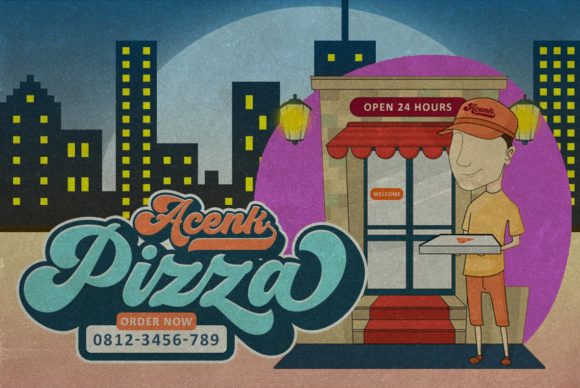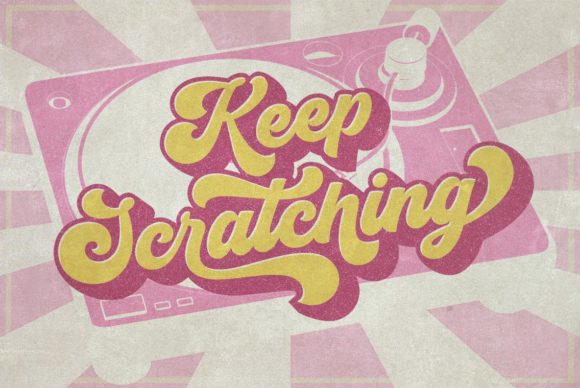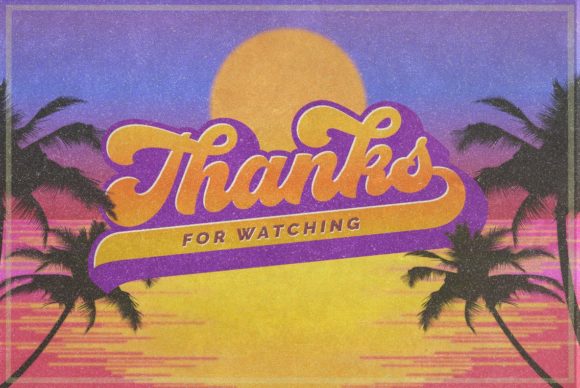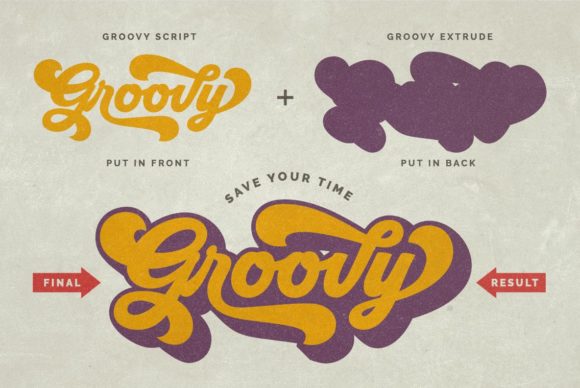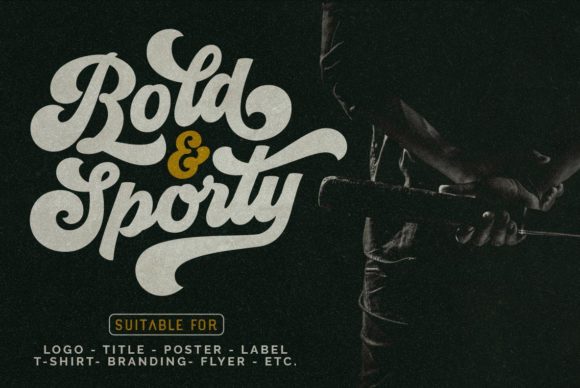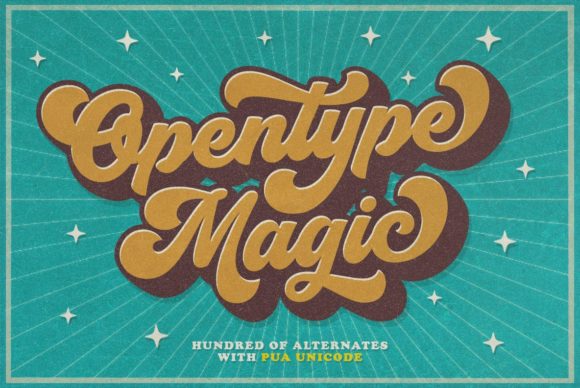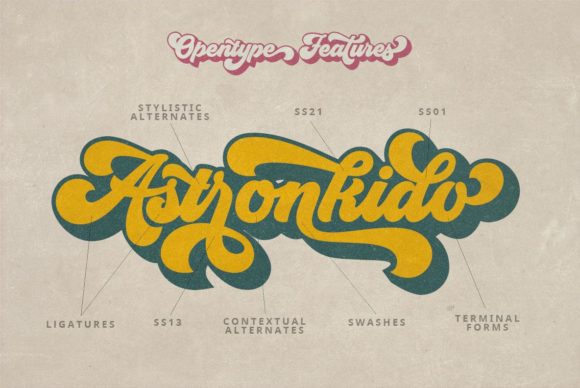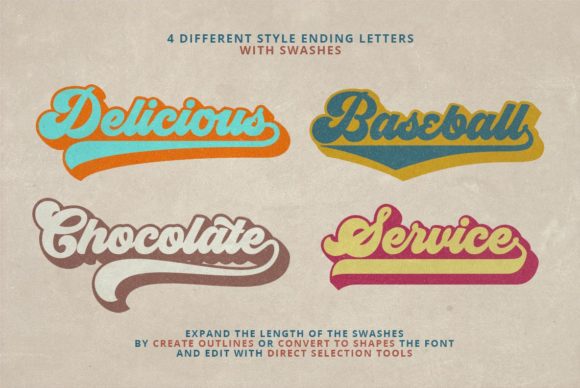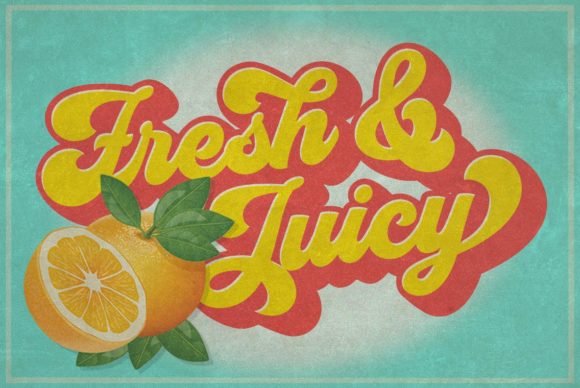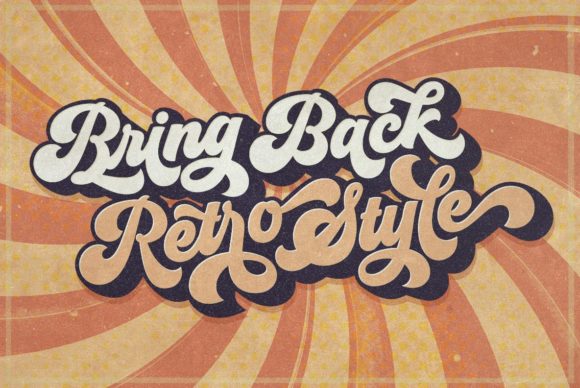
Groovy Font
Groovy is inspired by the iconic advertisements of the late 60’s and 70’s. Get funky with this gorgeous and nostalgic script, and take any retro design to the next level.